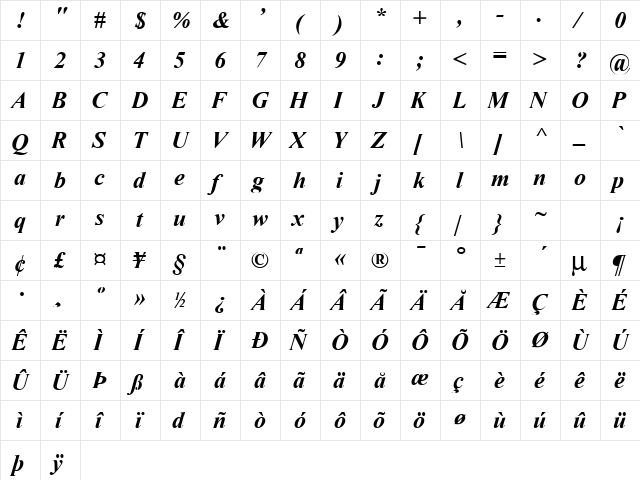
Marin Bold Ital A
Design Context for Marin Bold Ital Typeface
Marin Bold Ital offers clean, dependable letterforms without strong stylistic allegiance, making it a practical choice for designers who need flexibility. The heavy weight commands attention and anchors typographic hierarchies.